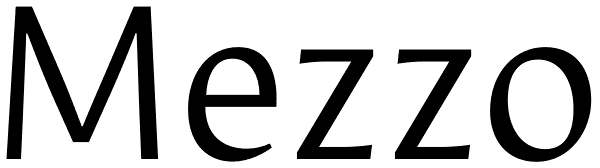
ALS Mezzo
Mezzo is a slender, humanist sans serif with four font styles. Designers will find it useful when creating packaging, candy and pastry wrappers, perfume and wine labels, etc. Slim and elegant letterforms are especially fit for small pieces of text...